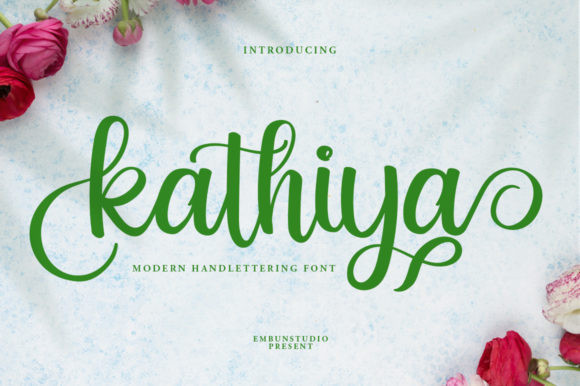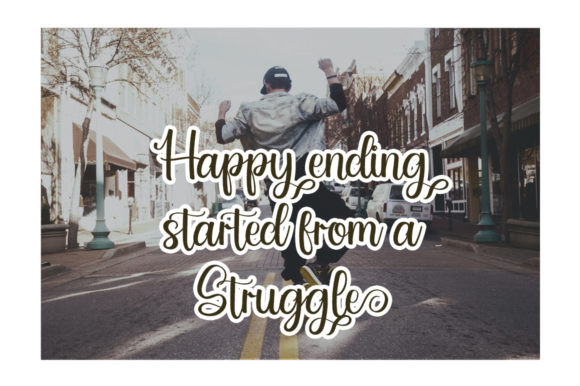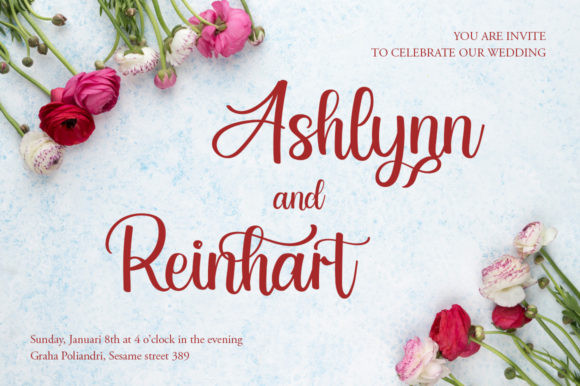
Kathiya Font
Kathiya is a modern and friendly script font. Its distinct and well rounded letters make this font a masterpiece. Fall in love with its incredibly versatile style and use it to create spectacular designs!